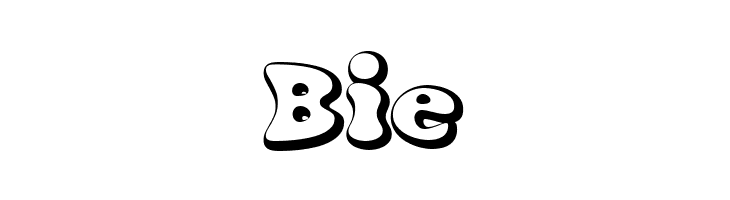
A playful, bold font with rounded, bubbly characters and a hand-drawn feel.
A playful, candy-inspired font with bold, rounded characters and a three-dimensional effect.